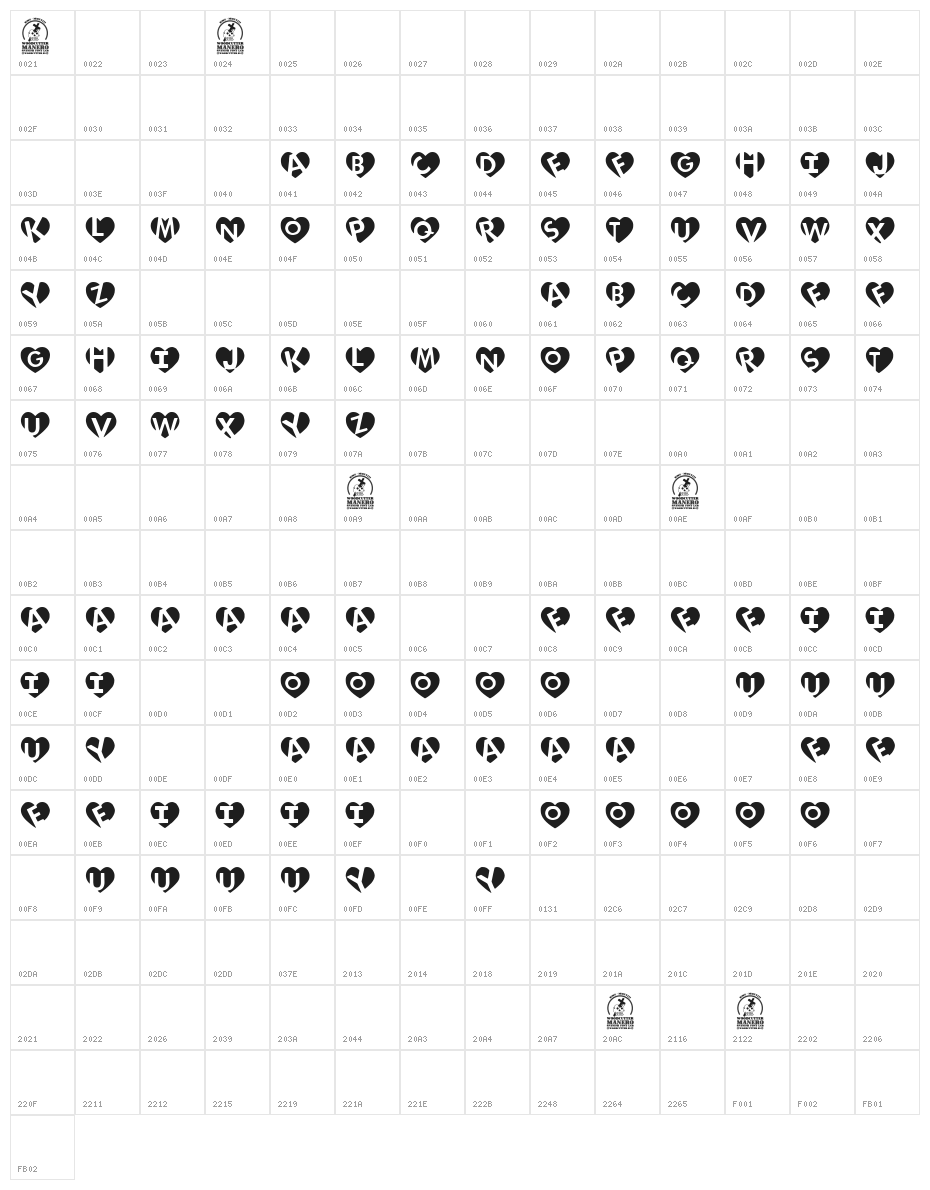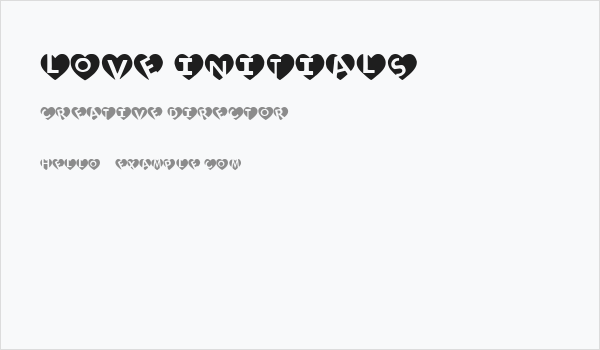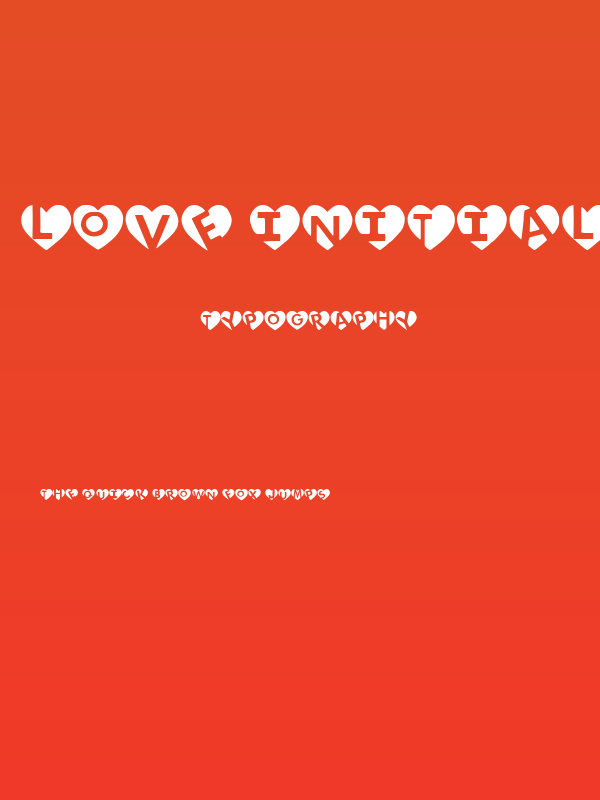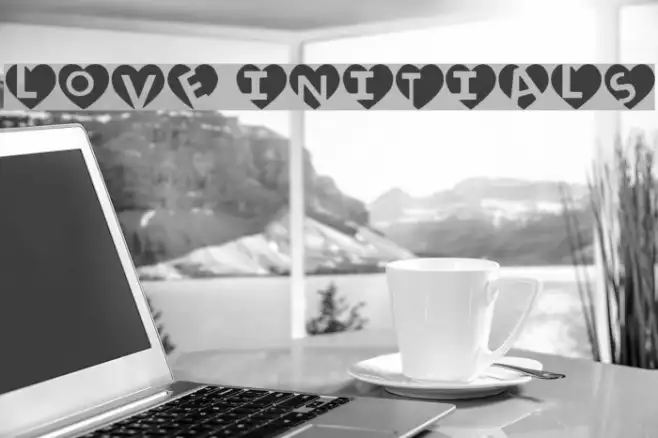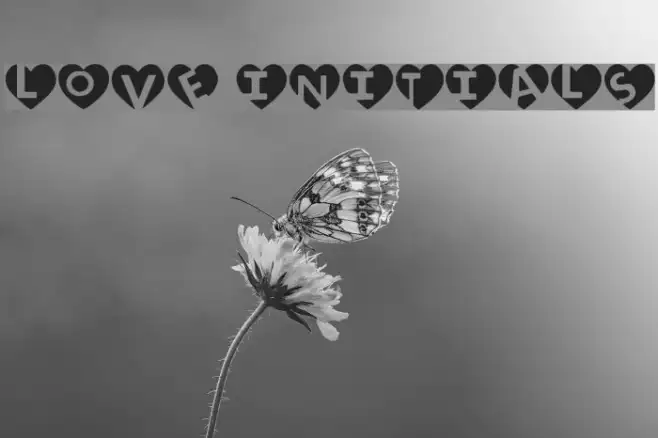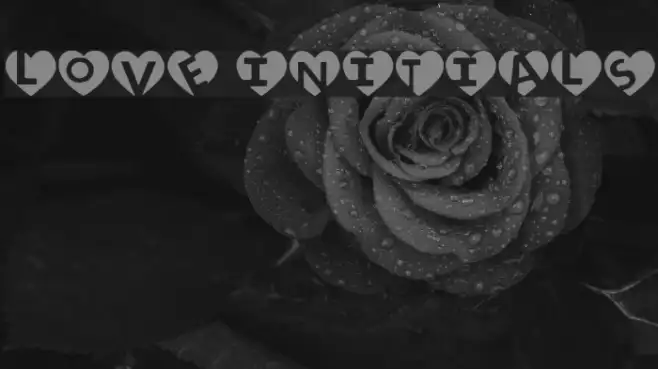
love initials Font
love initials Description
This font features a unique design where each character is embedded within a heart shape, creating a playful and romantic aesthetic. The letters are bold and stylized, with a consistent thickness throughout, giving them a striking appearance. The heart motif is prominent, making it ideal for projects that require a touch of love or affection. The characters are well-spaced, ensuring readability while maintaining the decorative theme. This font is perfect for creative projects that aim to convey warmth and emotion.
| Proposed Projects | Ideal for Valentine's Day cards, wedding invitations, love-themed posters, and romantic branding. |